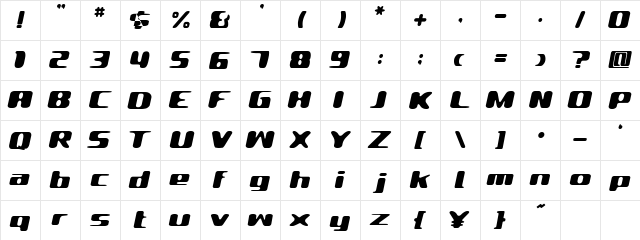
LBIlovely bold italic Alp
Design Context for LBIlovely bold italic Typeface
LBIlovely bold italic is a composed and adaptable typeface that performs quietly and consistently across a wide range of design contexts. Its italic angle brings a sense of urgency and motion to the letterforms. Its bold stroke weight gives it real presence on the page.
Pro Tip: Use LBIlovely bold italic for emphasis, pull quotes, and subheadings where its slanted energy can add rhythm to the layout.